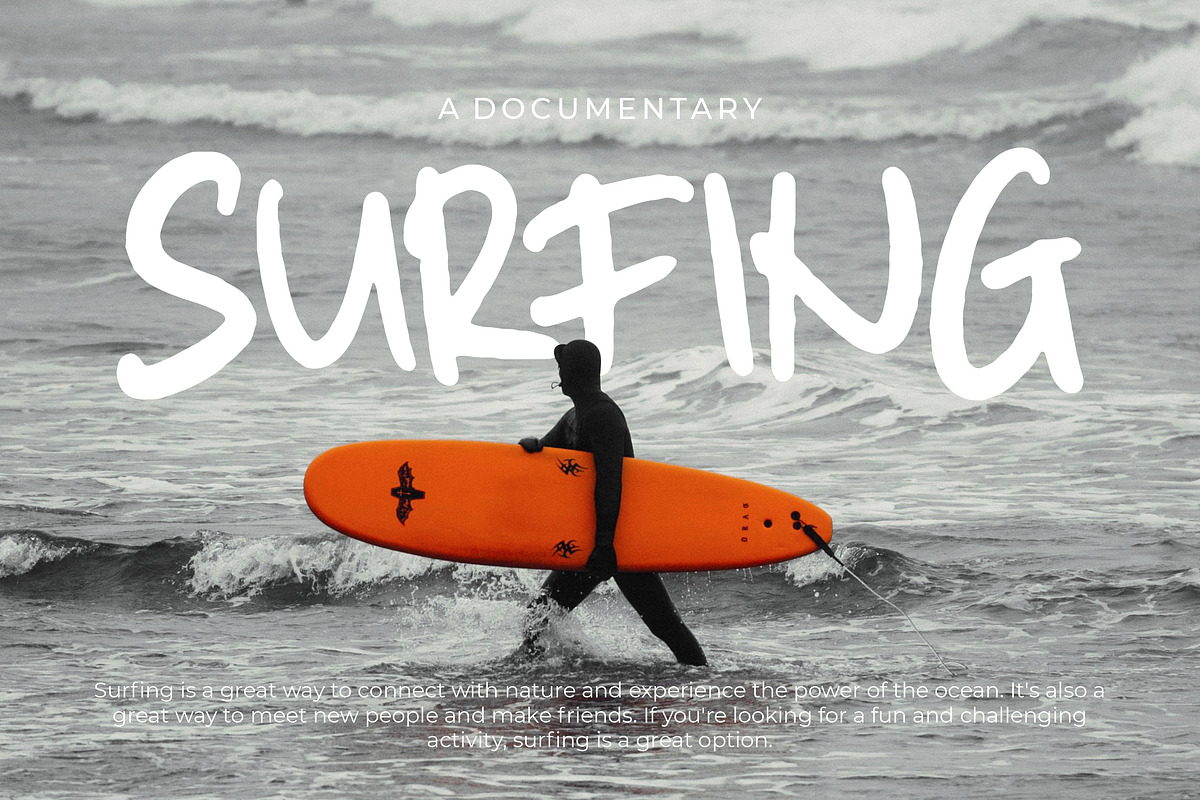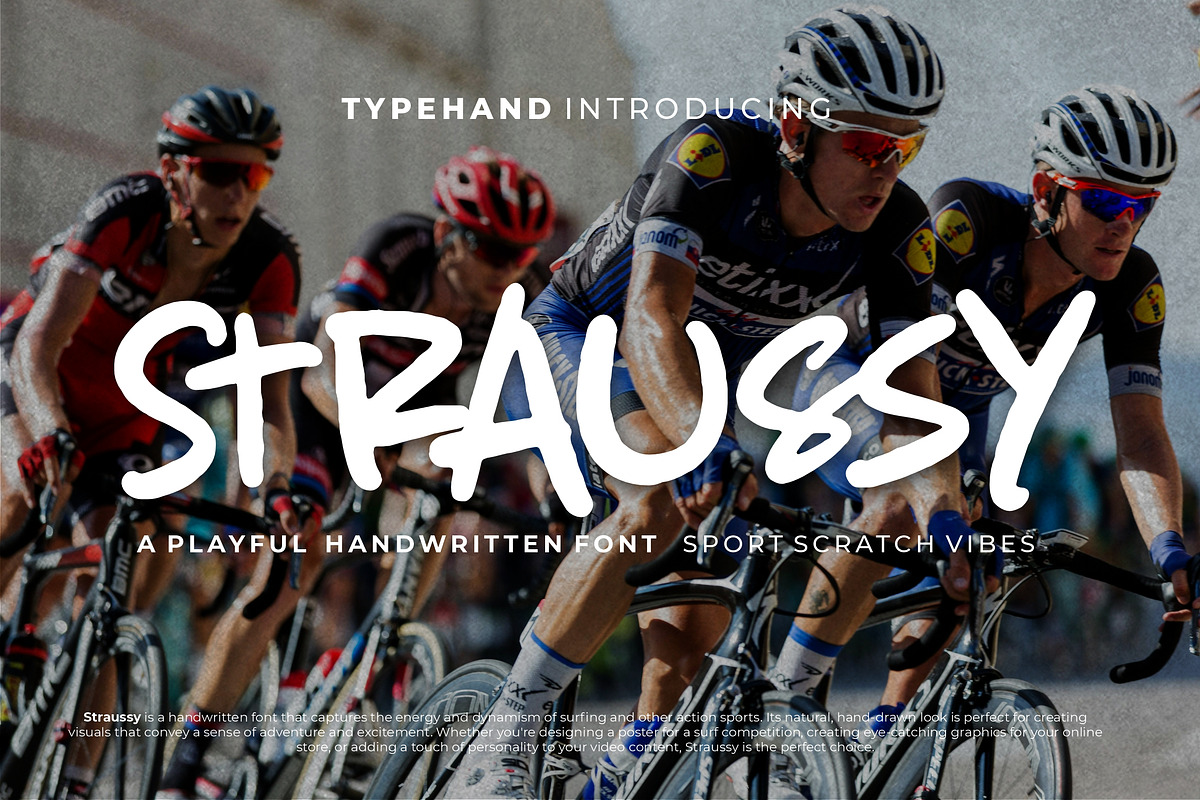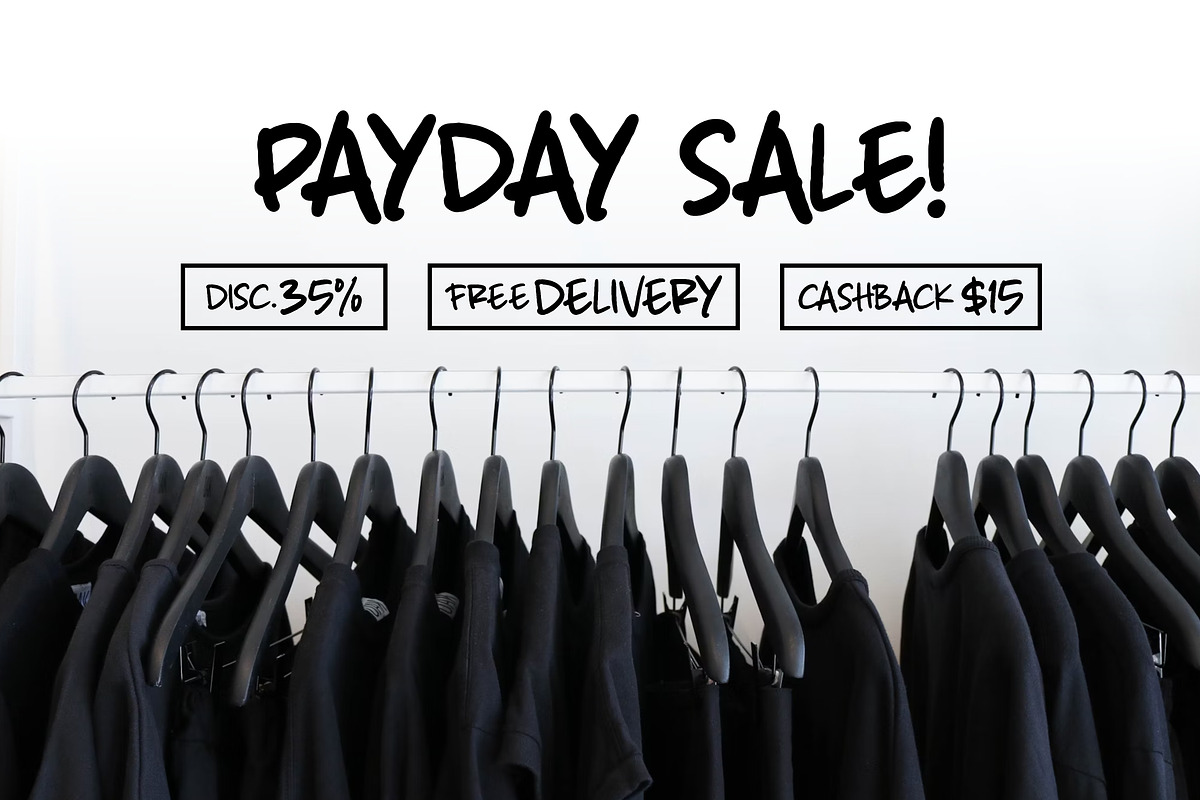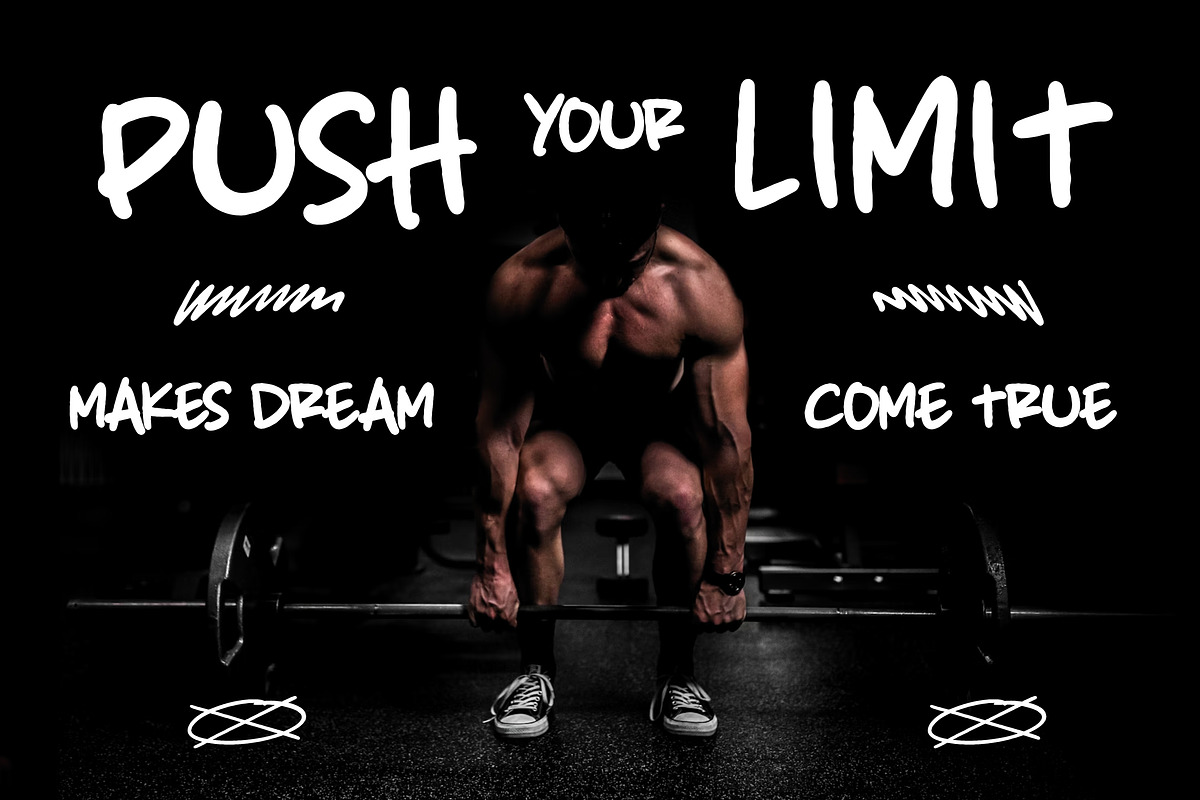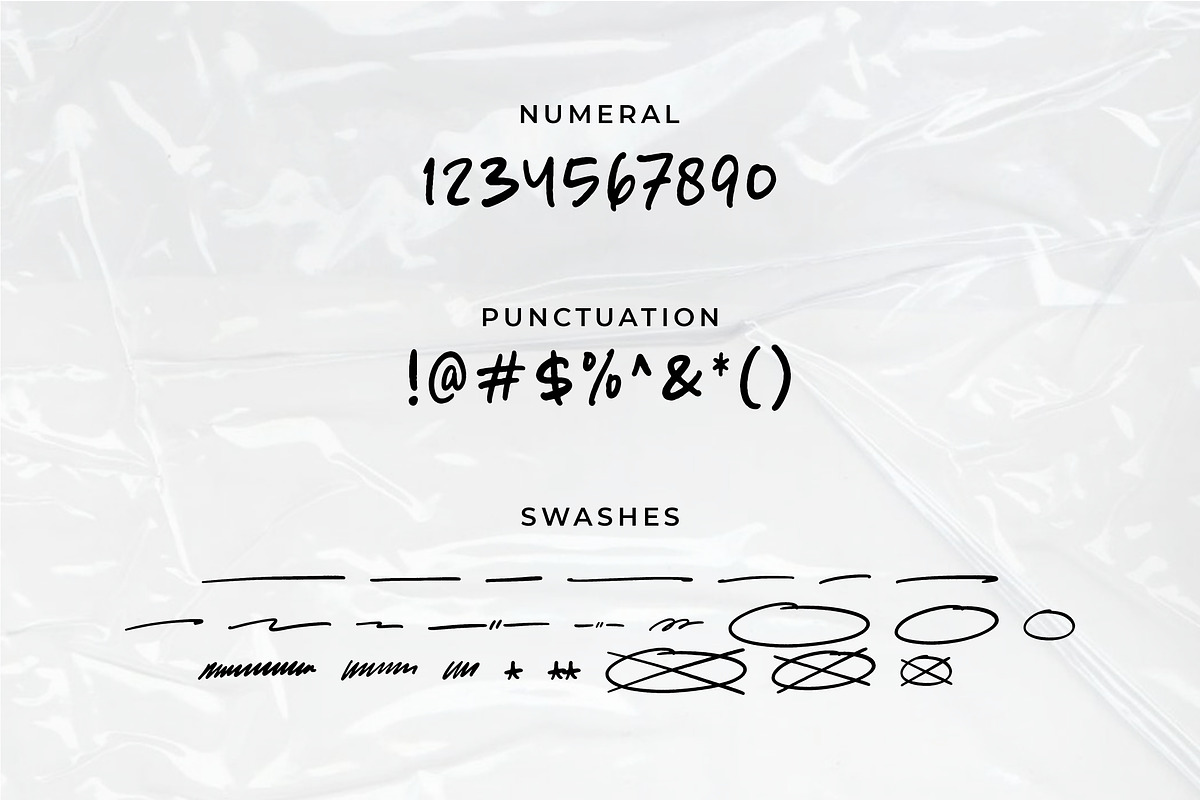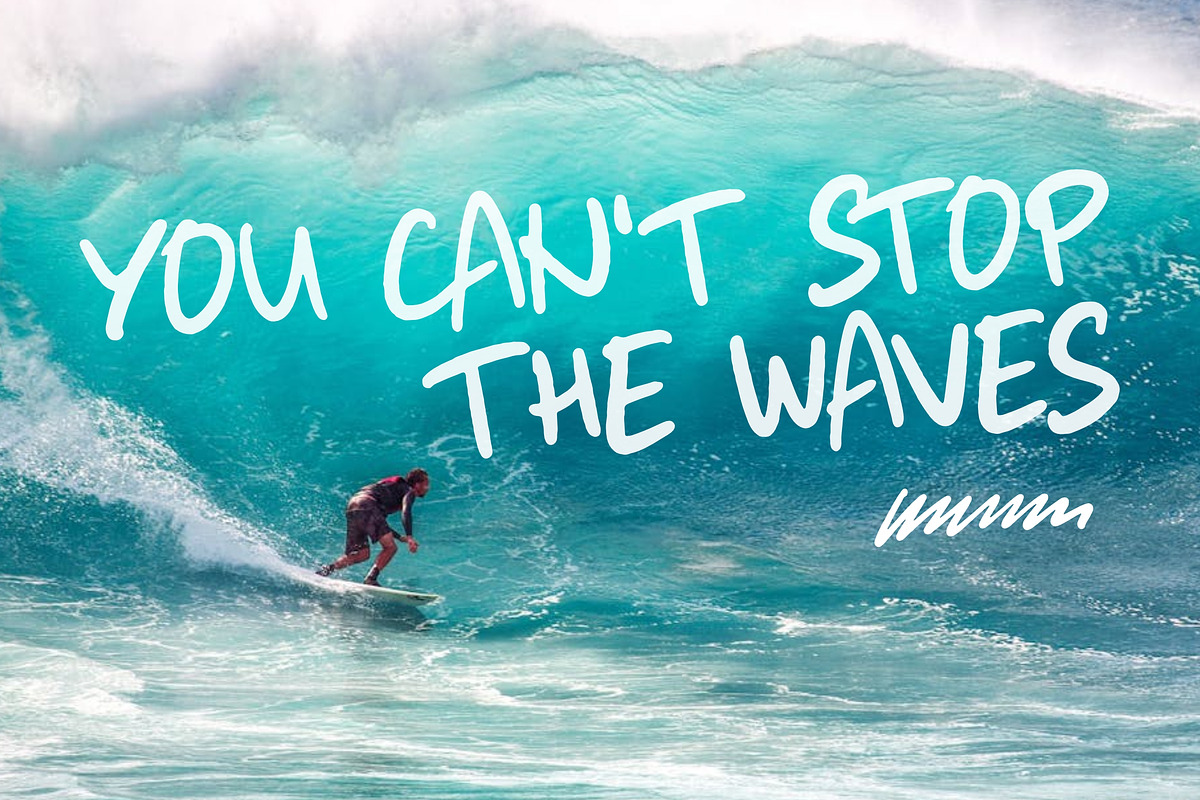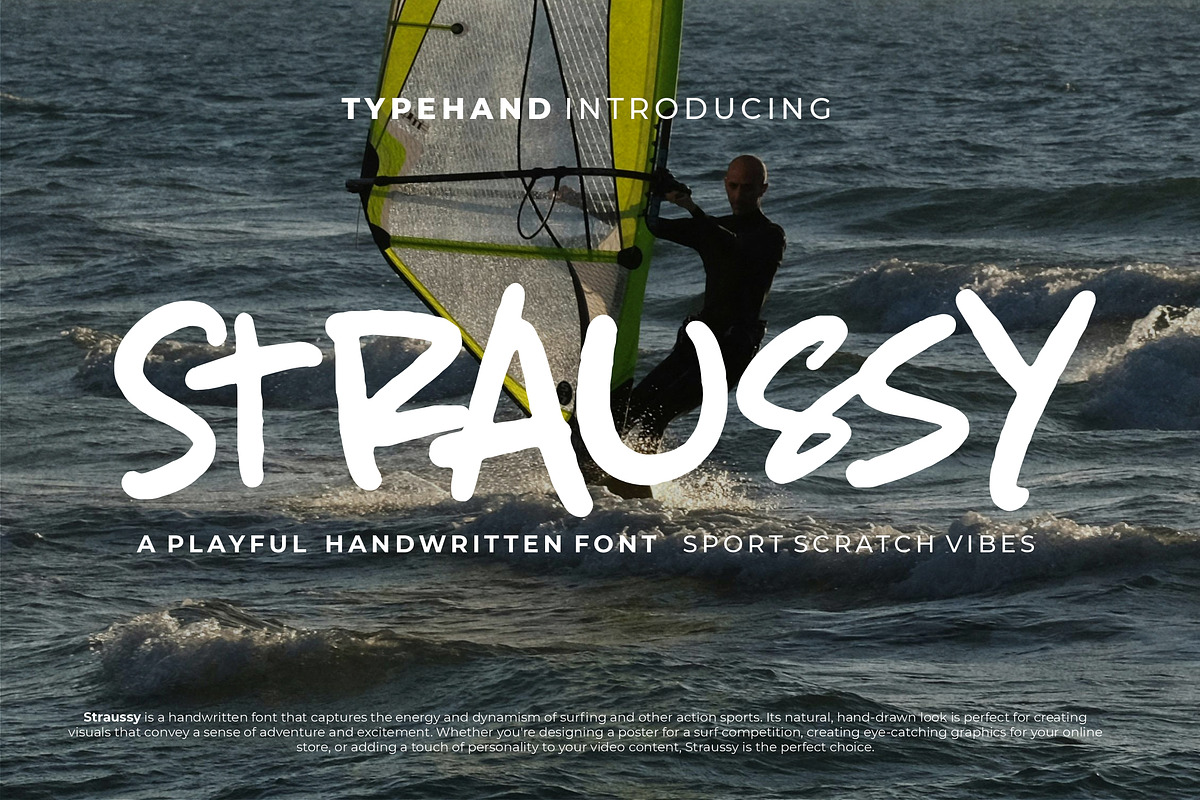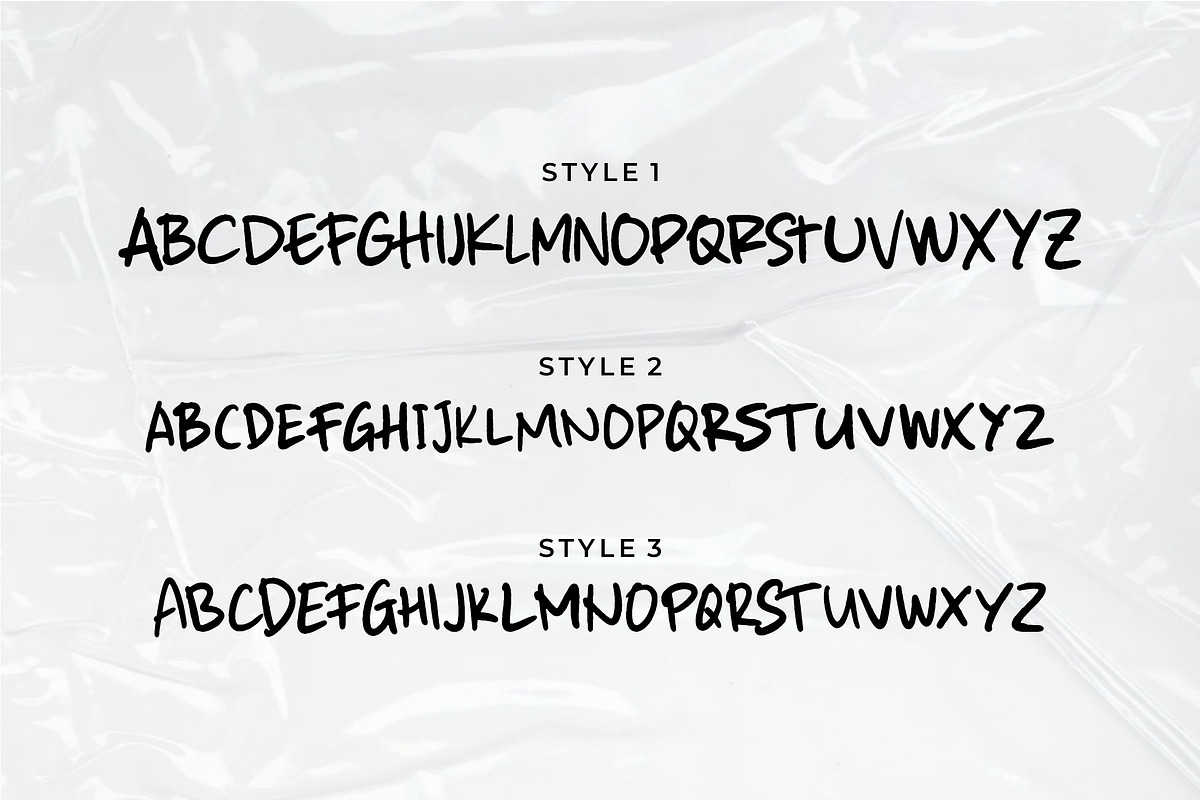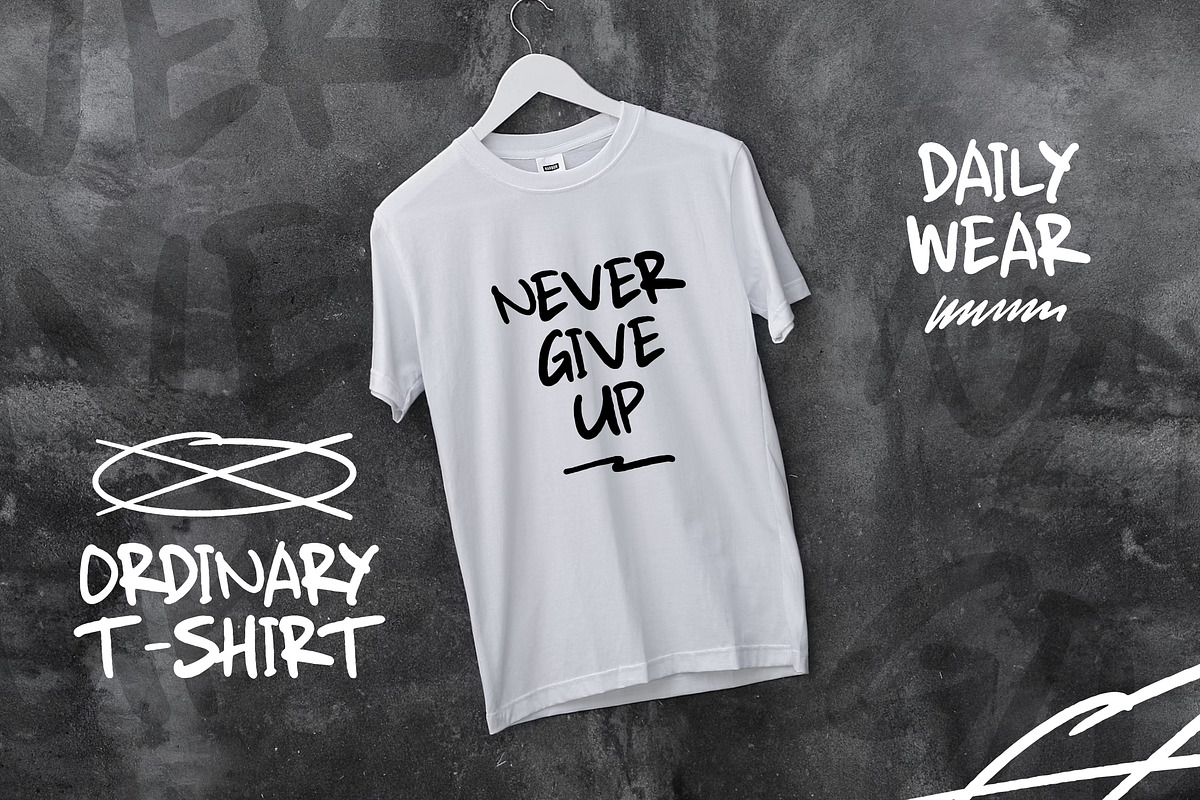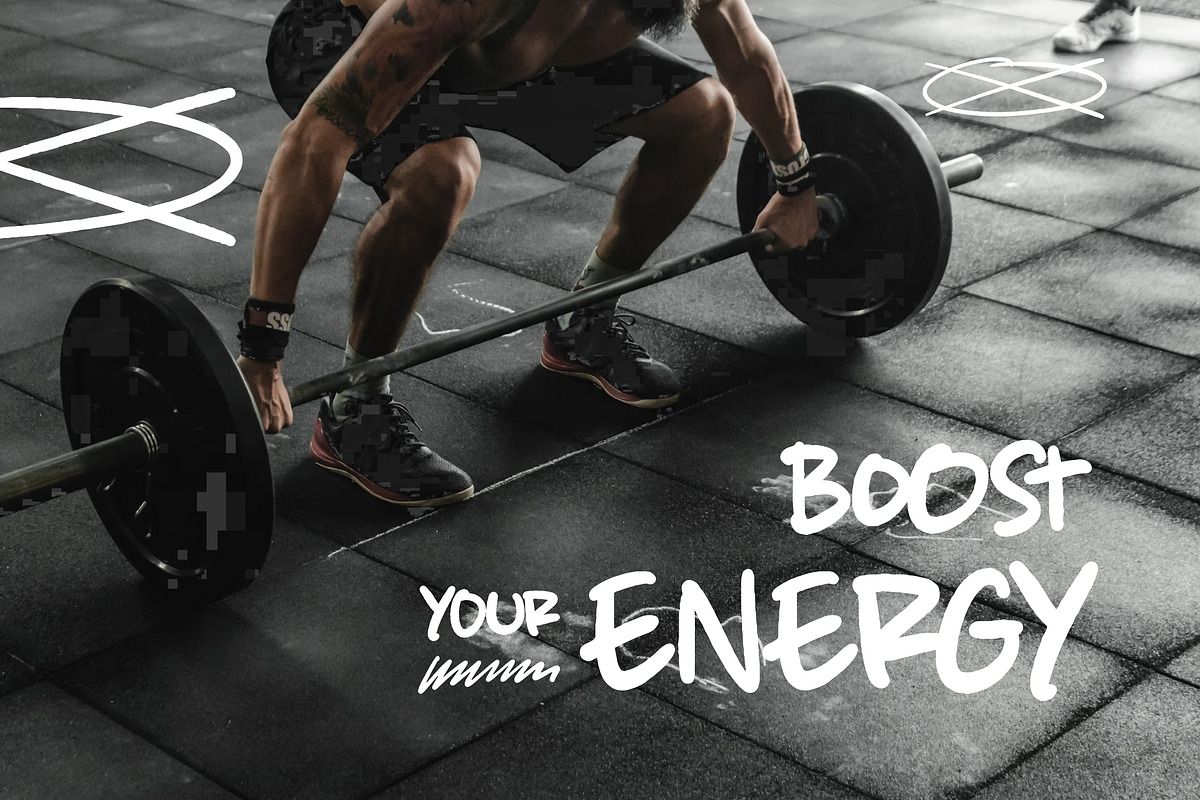
Straussy – 3 Style Bold Handwritten
Straussy – 3 Font Style | Bold Handwritten
Introducing Straussy – 3 Font Style, a dynamic handwritten font family that brings bold energy, modern personality, and streetwise charm to your creative projects. This font captures the authentic feel of hand-drawn lettering—raw, stylish, and full of attitude. With three distinct styles included, Straussy is your go-to toolkit for making a strong visual impact across various design platforms.
From logo design and apparel graphics to eye-catching posters and social media content, Straussy offers exceptional versatility and an effortlessly cool aesthetic.
- Streetwear and fashion branding
- Music and entertainment designs
- Posters, flyers, and album covers
- YouTube thumbnails and digital media
- Merch designs, stickers, and packaging
- Bold editorial layouts and more
Why Choose Straussy? Straussy isn't just a font—it's a statement. It's crafted for designers who want to stand out with bold, handmade lettering that brings energy and authenticity to every project. The three-style package gives you creative freedom to explore different moods, tones, and applications without switching typefaces.
Whether you're creating high-impact branding or bold typographic art, Straussy helps you deliver your message with power, edge, and unmistakable style.